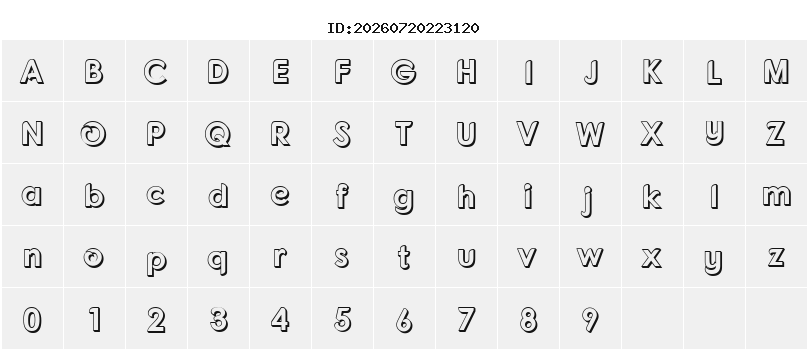
Fonarto XT Preview
• Font Name: Fonarto XT
• Designer: Arwan Sutanto
About Fonarto XT.ttf
Fonarto XT.ttf is a modern, elegant sans-serif font designed for ultimate readability and visual harmony. Perfect for branding, headlines, web design, and print materials.